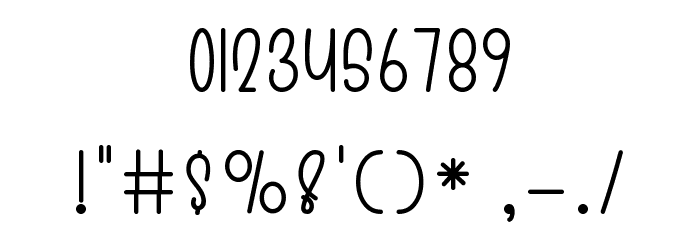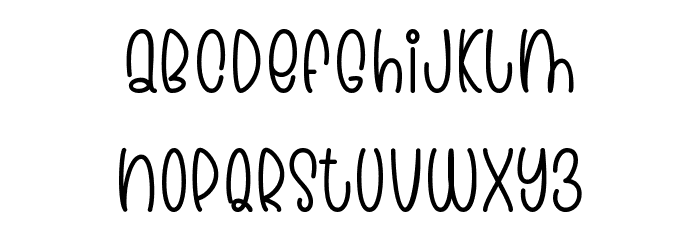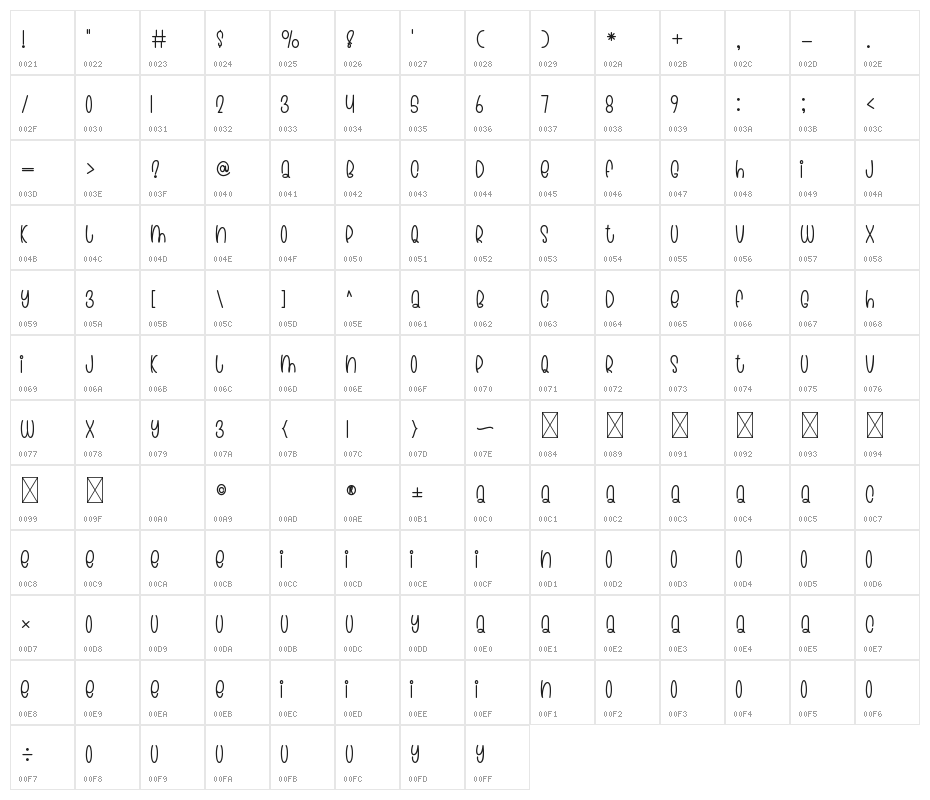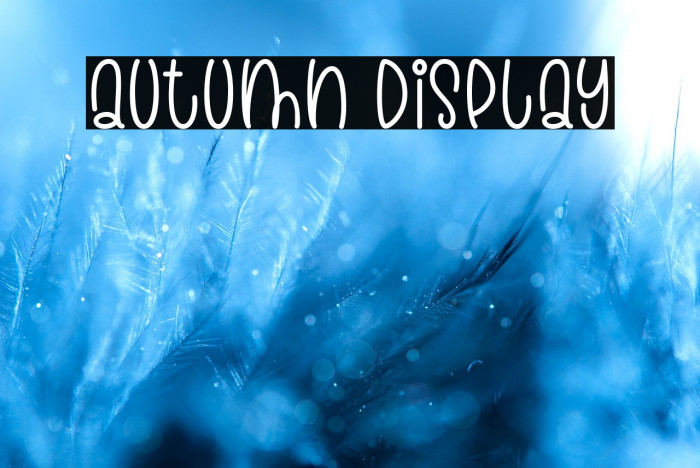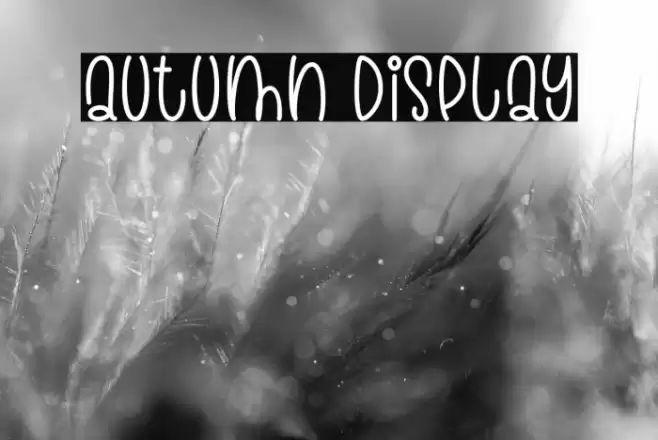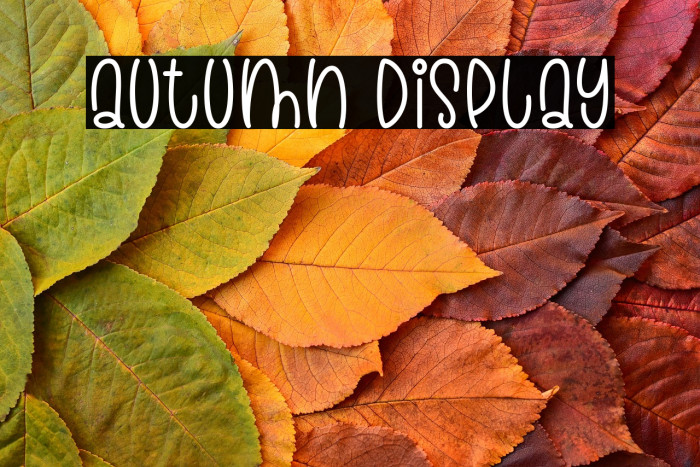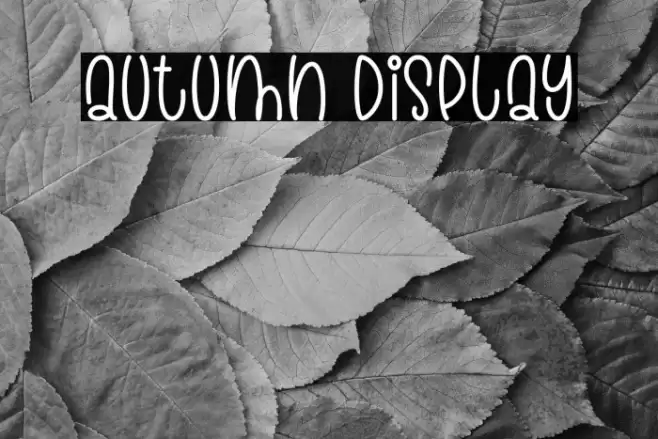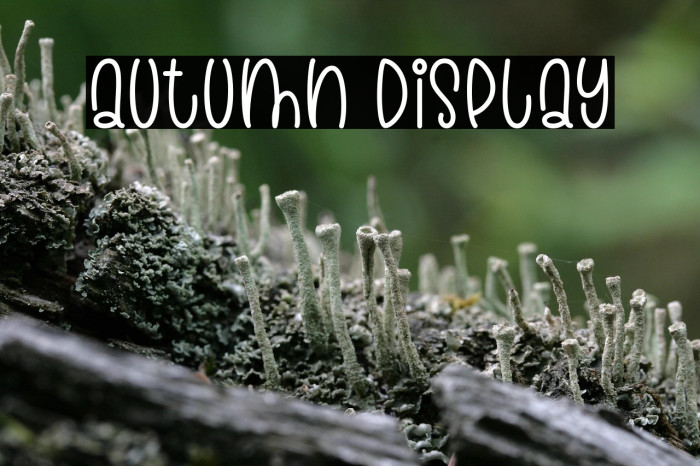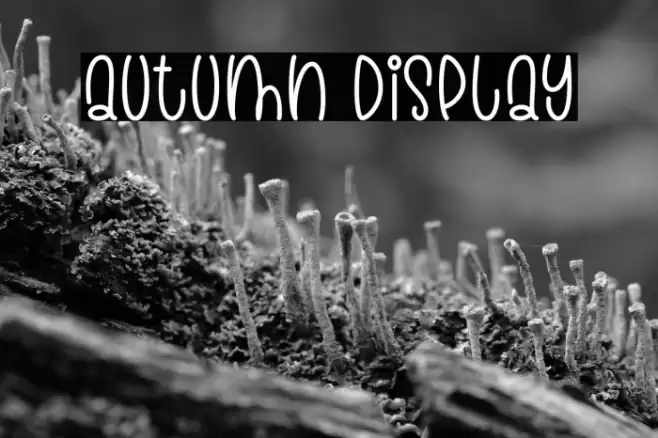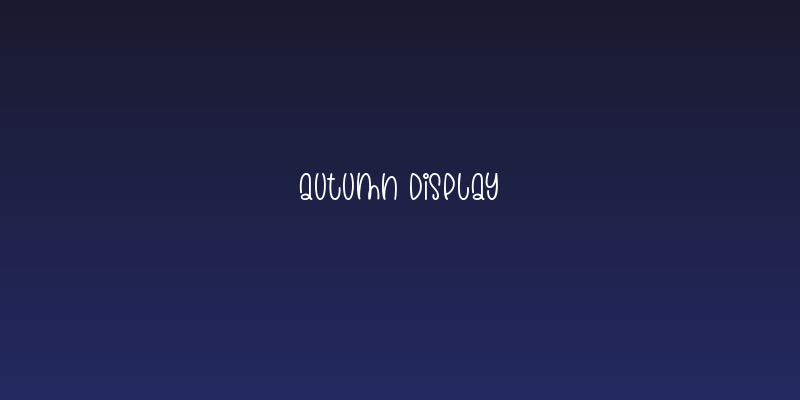
Autumn Display Font
Autumn Display Description
This playful and whimsical font features rounded, looping characters that exude a sense of fun and creativity. The letters are evenly spaced with a consistent stroke width, giving it a clean and approachable appearance. The uppercase and lowercase letters maintain a cohesive style, with a slight slant that adds to its casual charm. The numerals and special characters are designed to match the overall aesthetic, making it versatile for various uses. Its unique style makes it stand out, while still being legible and easy to read.
| Proposed Projects | Ideal for children's books, playful branding, greeting cards, and creative projects. |